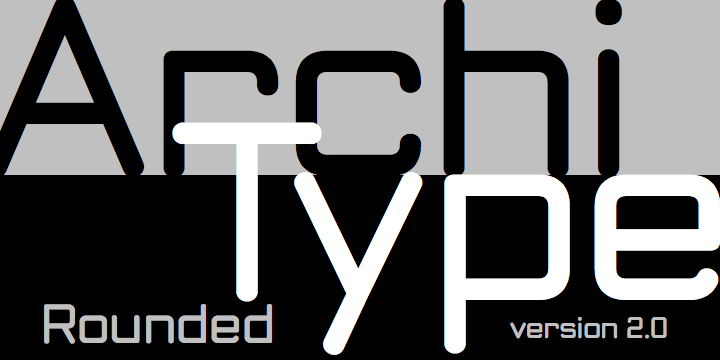
ArchiType Rounded Font is an excellent choice for projects that demand a friendly, contemporary, and highly approachable aesthetic. It's perfectly suited for modern branding, user interface design, mobile applications, educational materials, and any context where clarity, warmth, and a welcoming feel are paramount. Imagine it gracing a new tech startup's logo, making an app's navigation feel intuitive and soft, or bringing a pleasant readability to online articles. Its softened corners and clean lines ensure your message is conveyed with ease, making every interaction a positive one.
What makes ArchiType Rounded Font so exciting is its remarkable ability to combine professional simplicity with an inviting human touch. The rounded edges remove any harshness, creating a visual softness that makes the text incredibly easy on the eyes, even during extended reading. It's more than just a font; it’s a design element that fosters a sense of trust and user-friendliness, making complex information feel more accessible and engaging. This typeface doesn't just display content; it shapes an experience that is both efficient and pleasant.
The ArchiType Rounded Font family typically offers a comprehensive range of weights and styles to provide maximum design versatility. You can expect to find options from a delicate Thin or Light, through a balanced Regular, to a substantial Bold or Black weight. This broad spectrum allows for creating clear visual hierarchies and ensures that whether you need subtle annotations or prominent headlines, the ArchiType Rounded Font Free Download provides the foundational versatility to achieve a cohesive and inviting design across all your platforms.